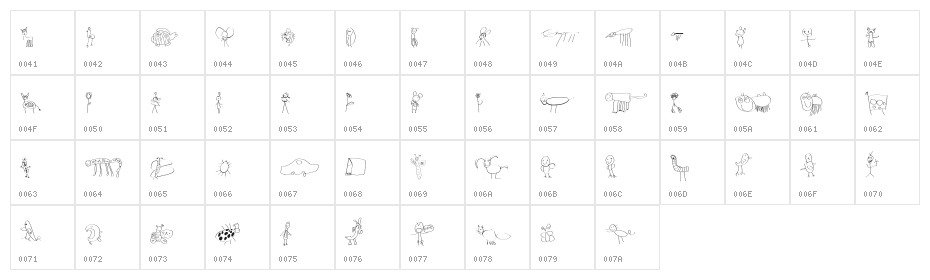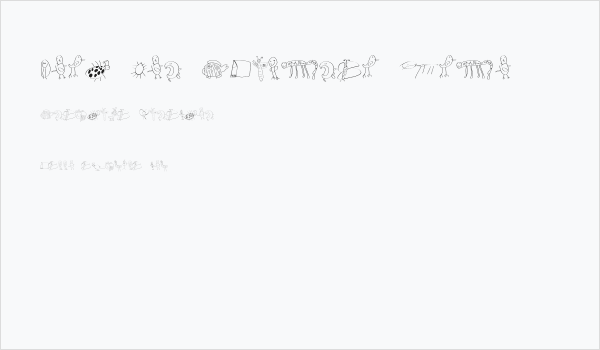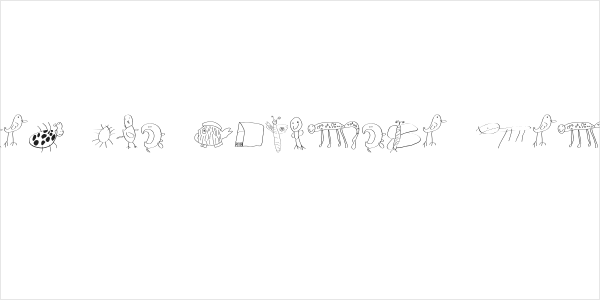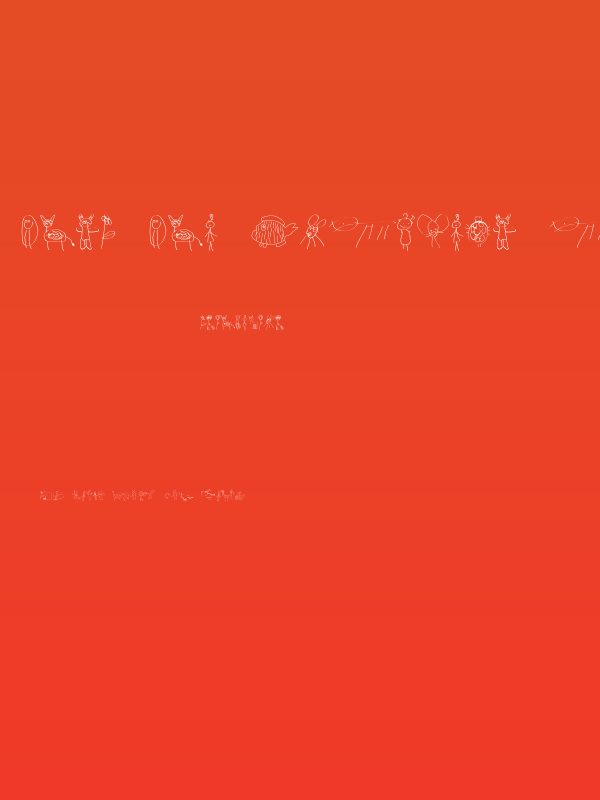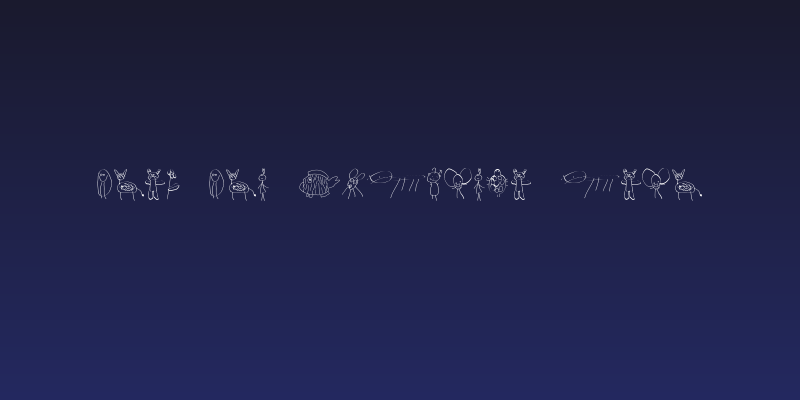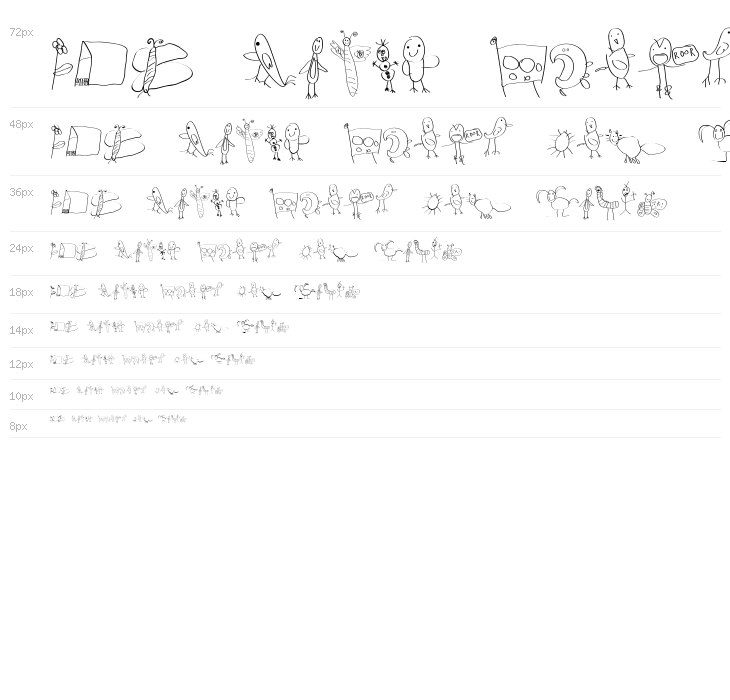
Font for Children Indo Font
Font for Children Indo Description
This whimsical and playful font is designed to capture the imagination of children. Each character is represented by a unique, hand-drawn illustration resembling a child's drawing. The style is informal and charming, with a variety of quirky shapes and figures that evoke a sense of fun and creativity. The characters are not uniform in size or shape, adding to the playful and spontaneous feel. This font is perfect for projects aimed at young audiences, such as children's books, educational materials, or playful branding. Its distinctive style makes it stand out, providing a sense of joy and lightheartedness.
| Use Case | Headlines, Logos, Children's materials |
| Proposed Projects | Ideal for children's books, educational materials, playful branding, and creative projects targeting young audiences. |